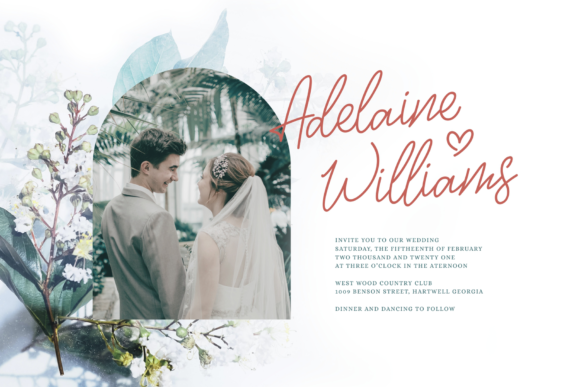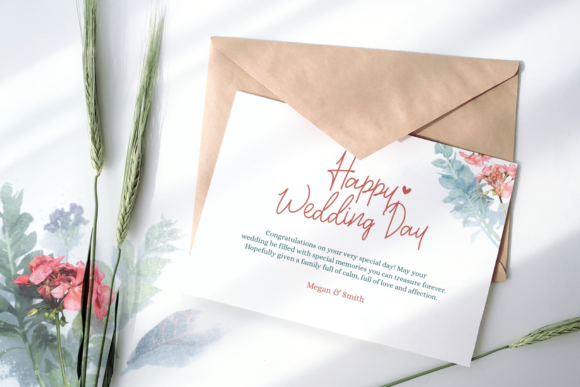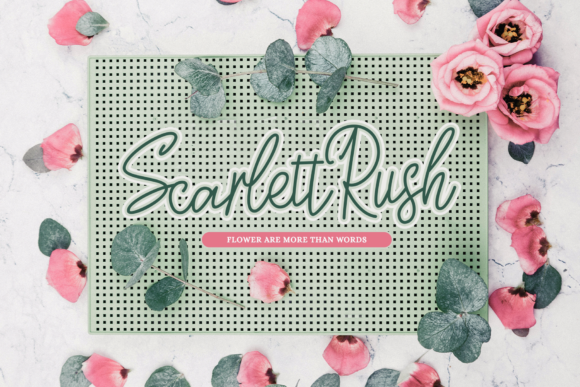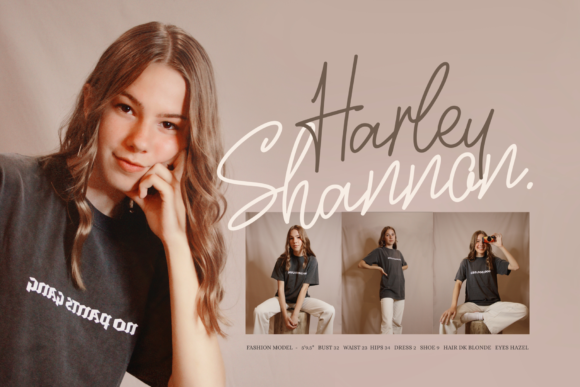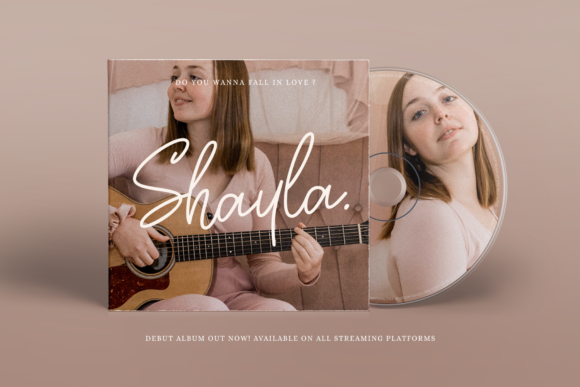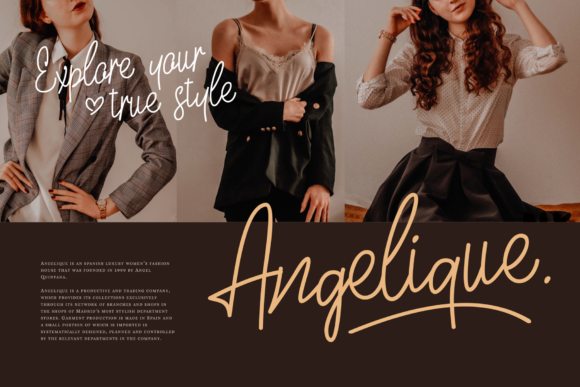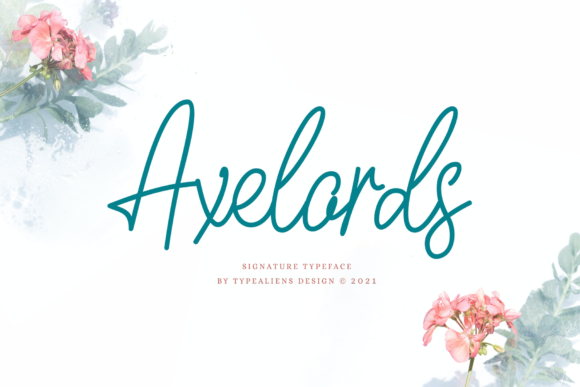
Introducing Axelords Font: Elevate Your Designs with a Modern Handwritten Style
In the world of typography, a well-crafted font can make all the difference in elevating your designs from ordinary to extraordinary. If you’re a designer or crafter looking for a modern and fresh handwritten font to add a touch of personality to your projects, look no further than Axelords Font. This beautifully flowing script font is perfect for creating modern, high-spirited designs that capture attention and leave a lasting impression.
What Makes Axelords Font Special?
Axelords Font boasts a unique and stylish handwritten aesthetic that’s both modern and elegant. Its flowing lines and curves give it a dynamic, energetic feel that’s ideal for a wide range of design applications. Whether you’re creating social media posts, wedding invitations, headlines, or any other type of visual content, Axelords Font is sure to add a touch of sophistication and flair.
Key Features of Axelords Font
• Modern and Fresh Style: Axelords Font features a contemporary handwritten style that’s perfect for designers and crafters looking for a unique and stylish typography solution.
• Beautifully Flowing Lines: The font’s flowing lines and curves create a sense of movement and energy, making it ideal for designs that require a dynamic and attention-grabbing approach.
• Highly Versatile: Axelords Font is suitable for a wide range of design applications, including social media posts, wedding invitations, headlines, and more.
• Elegant and Sophisticated: The font’s elegant and sophisticated aesthetic makes it perfect for designs that require a touch of luxury and refinement.
Use Cases for Axelords Font
Axelords Font is an incredibly versatile typography solution that can be used in a variety of design applications. Here are some use cases to get you started:
• Social Media Posts: Add a touch of personality to your social media posts with Axelords Font. Its modern and fresh style is perfect for creating engaging and attention-grabbing content.
• Wedding Invitations: Make your wedding invitations truly special with Axelords Font. Its elegant and sophisticated aesthetic is ideal for formal events and celebrations.
• Headlines and Titles: Use Axelords Font to create eye-catching headlines and titles for your blog posts, articles, and other written content.
• Branding and Packaging: Axelords Font can also be used for branding and packaging design, adding a touch of personality and style to your products and marketing materials.
Tips for Using Axelords Font Effectively
To get the most out of Axelords Font, here are some tips to keep in mind:
• Use it Sparingly: Axelords Font is a statement font, so use it sparingly to avoid overwhelming your designs.
• Experiment with Colors: Try pairing Axelords Font with different colors to create a unique and eye-catching aesthetic.
• Mix and Match: Don’t be afraid to mix and match Axelords Font with other typography solutions to create a visually interesting design.
Axelords Font is a beautifully flowing handwritten font with a modern and fresh style that’s perfect for designers and crafters looking to elevate their designs. Its highly versatile and elegant aesthetic makes it suitable for a wide range of design applications, from social media posts to wedding invitations and headlines. By incorporating Axelords Font into your typography arsenal, you’ll be able to create modern, high-spirited designs that capture attention and leave a lasting impression.